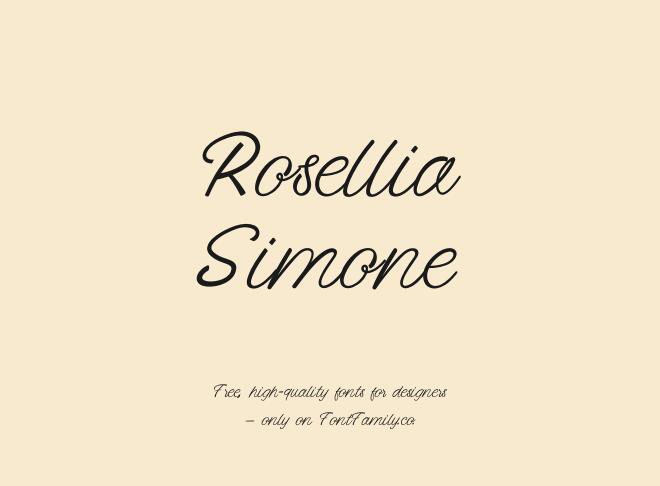
Rosellia Simone Font
Rosellia Simone Font, designed by Simone Foundry, is an elegant handwritten script font that oozes charm and sophistication. Released in 2020, it has quickly become a favorite among designers for its versatility and timeless appeal. The font is characterized by its fluid, handwritten style that mimics natural cursive writing. The decorative elements and elegant curves make it an excellent choice for wedding invitations, greeting cards, branding, logo designs, and more. Its delicate, feminine touch sets it apart from other script fonts, making it a unique addition to any designer's toolkit. Despite its intricate design, Rosellia Simone Font maintains legibility even at smaller sizes, making it as practical as it is beautiful. It is free for personal use, making it accessible for hobbyists and professionals alike.